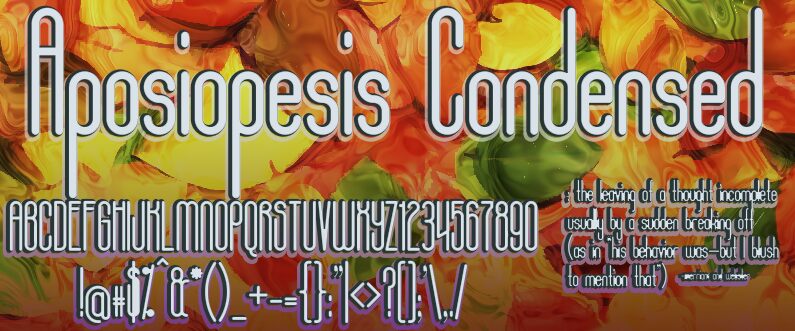
Aposiopesis Condensed by Rimando Nillo, Jr. is a free retro display font with an exceptionally tall, narrow profile. Long upright strokes curve into soft, rounded joins, giving the letters a tubular look reminiscent of 1970s novelty lettering, and the compressed spacing turns each word into a dense vertical pattern. Its changing stroke widths keep the forms lively.
The strong 1970s flavor suits music posters and fashion branding, especially when the design calls for lanky lettering with an offbeat, theatrical edge. On album covers and event graphics, its stretched forms can become part of the illustration itself, echoing cables, pipes, or looping line art.